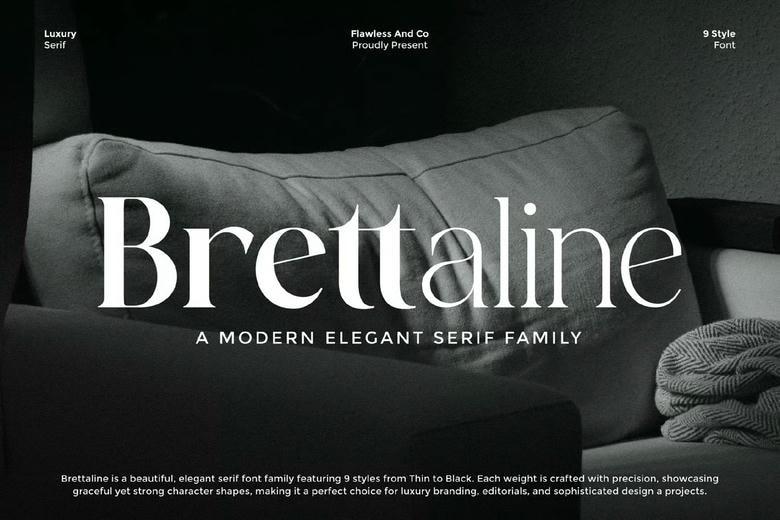
Brettaline Font Family
Brettaline Font
Brettaline is a serif family typeface, which combines the classic beauty with modern sophistication. Each weight is carefully crafted to provide an impression of elegance and equilibrium with 9 styles, including Thin to Black. Brettaline with its beautiful lines, aggressive serifs, and elegant proportions embodies the spirit of the contemporary luxury and editorial beauty.
Magazines, packaging, and the creative works that require sophistication and elegance perfectly fitted in branding, Brettaline gives a hint of sophistication and modernity in any visual piece of work.
Brettaline Serif Font Family